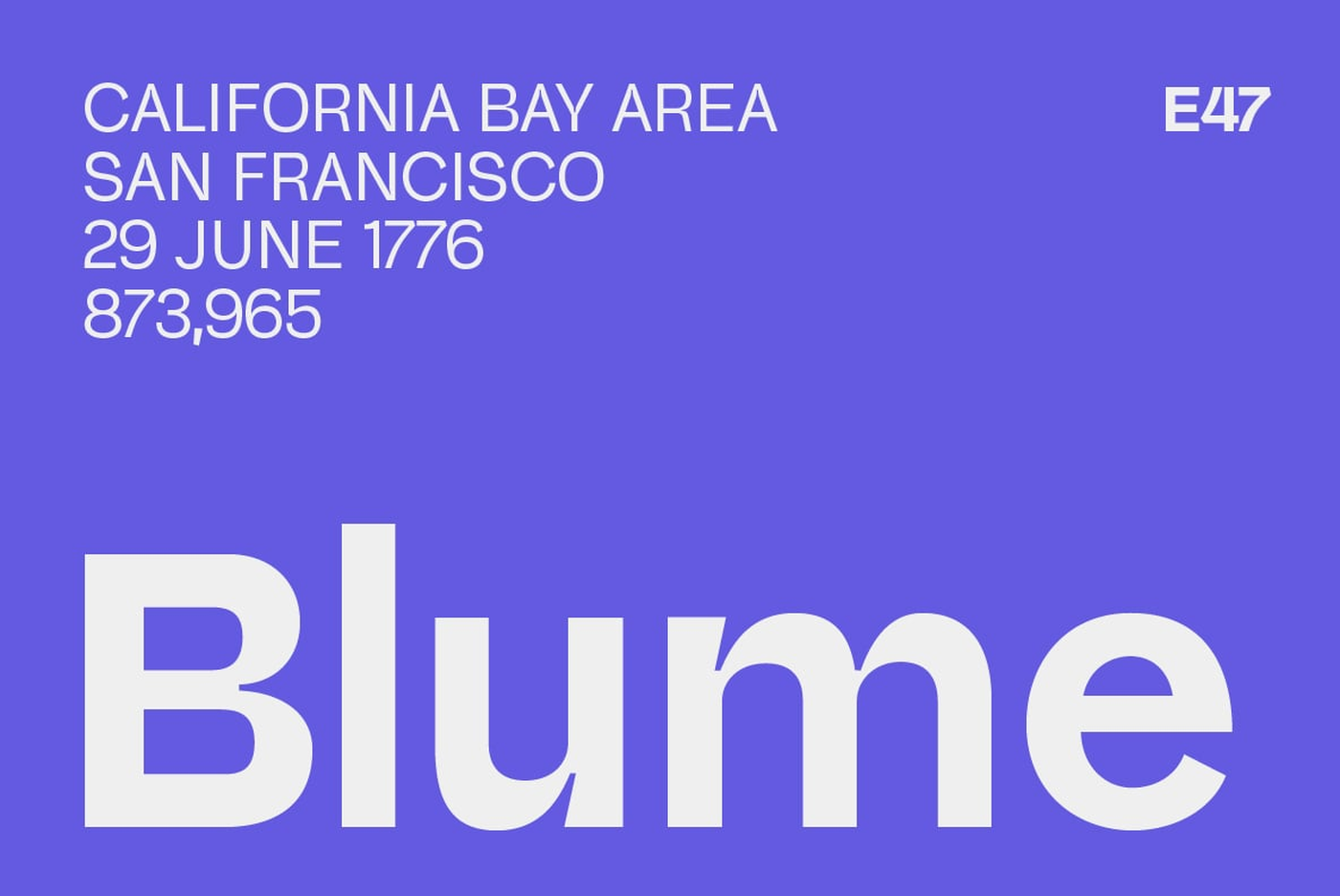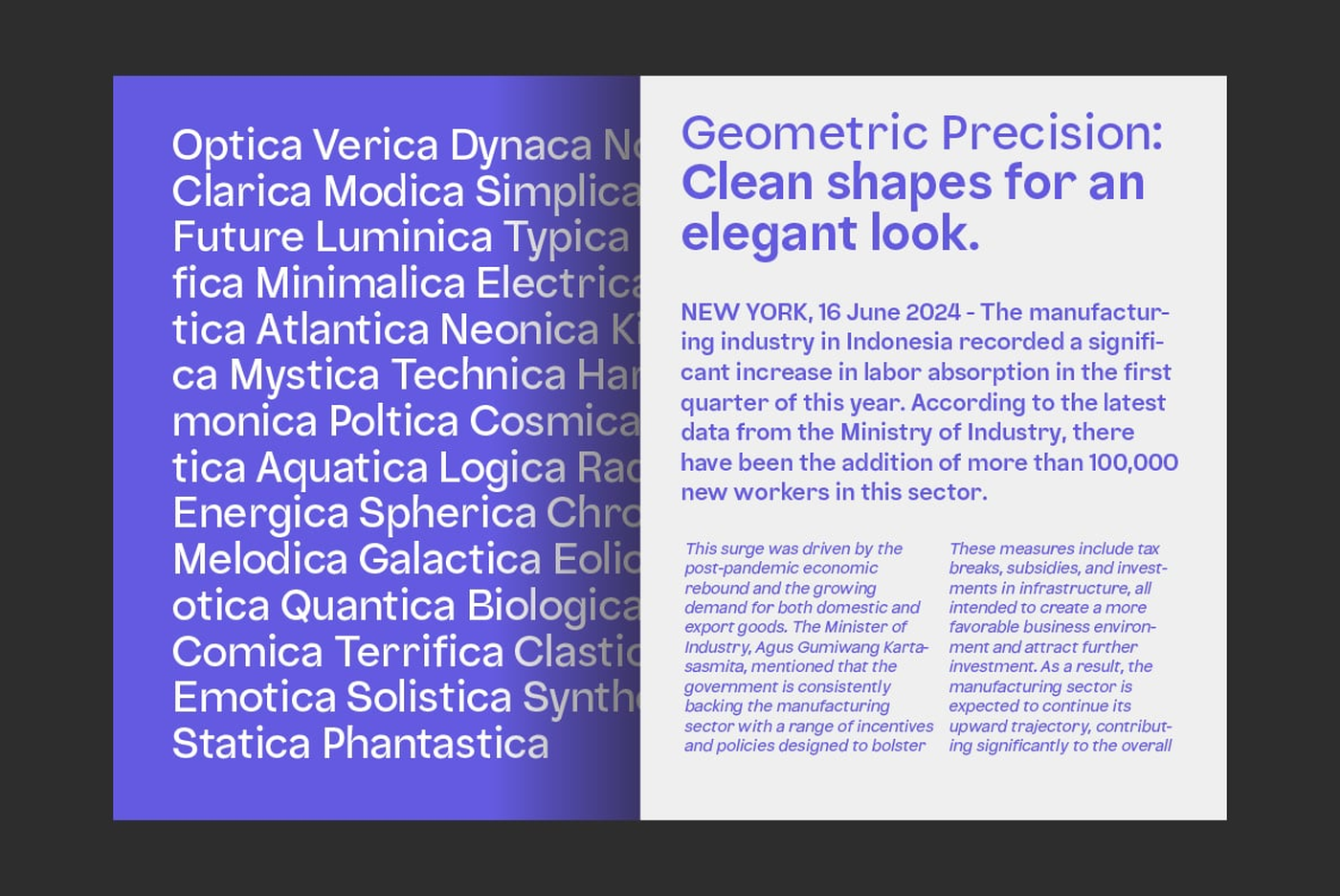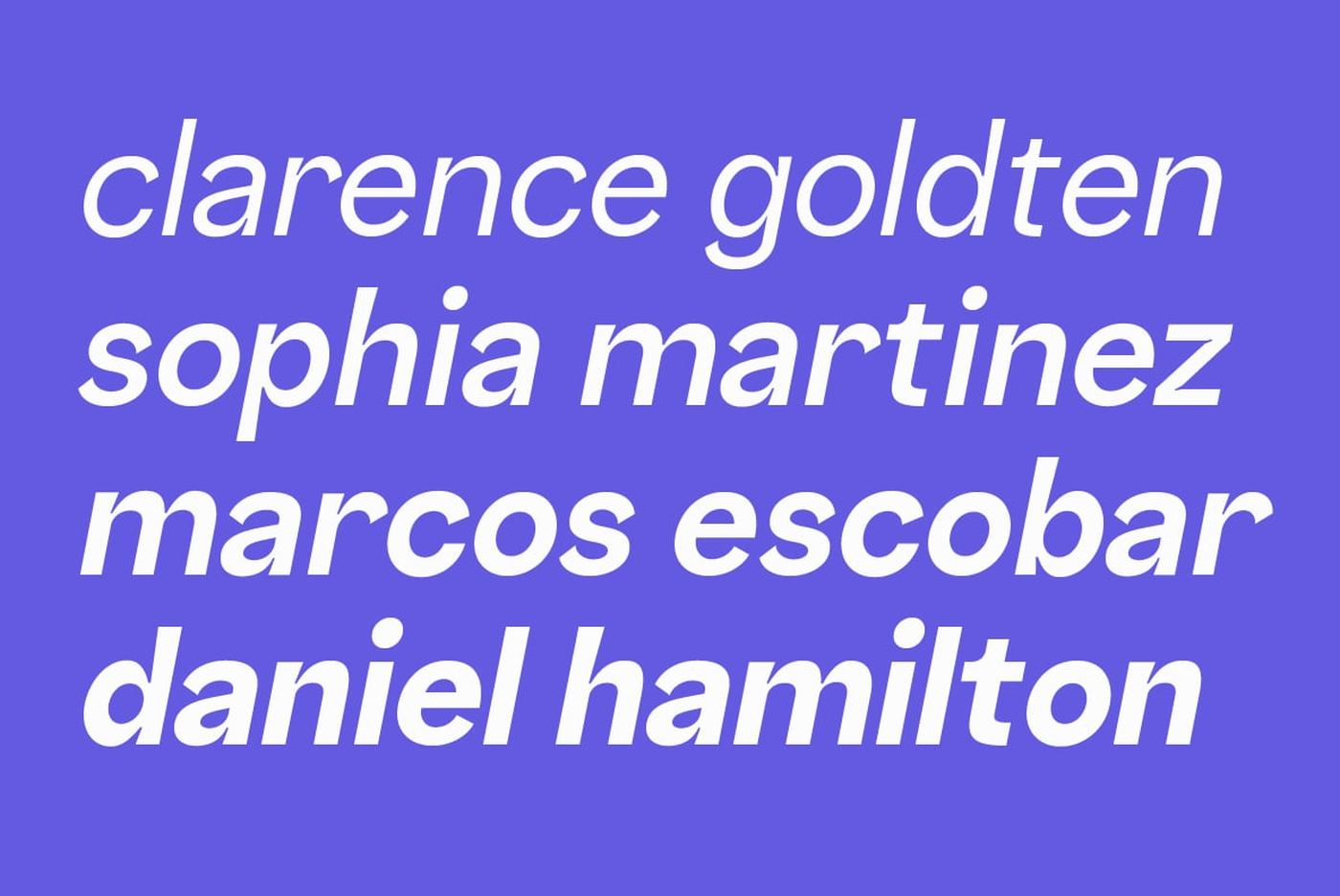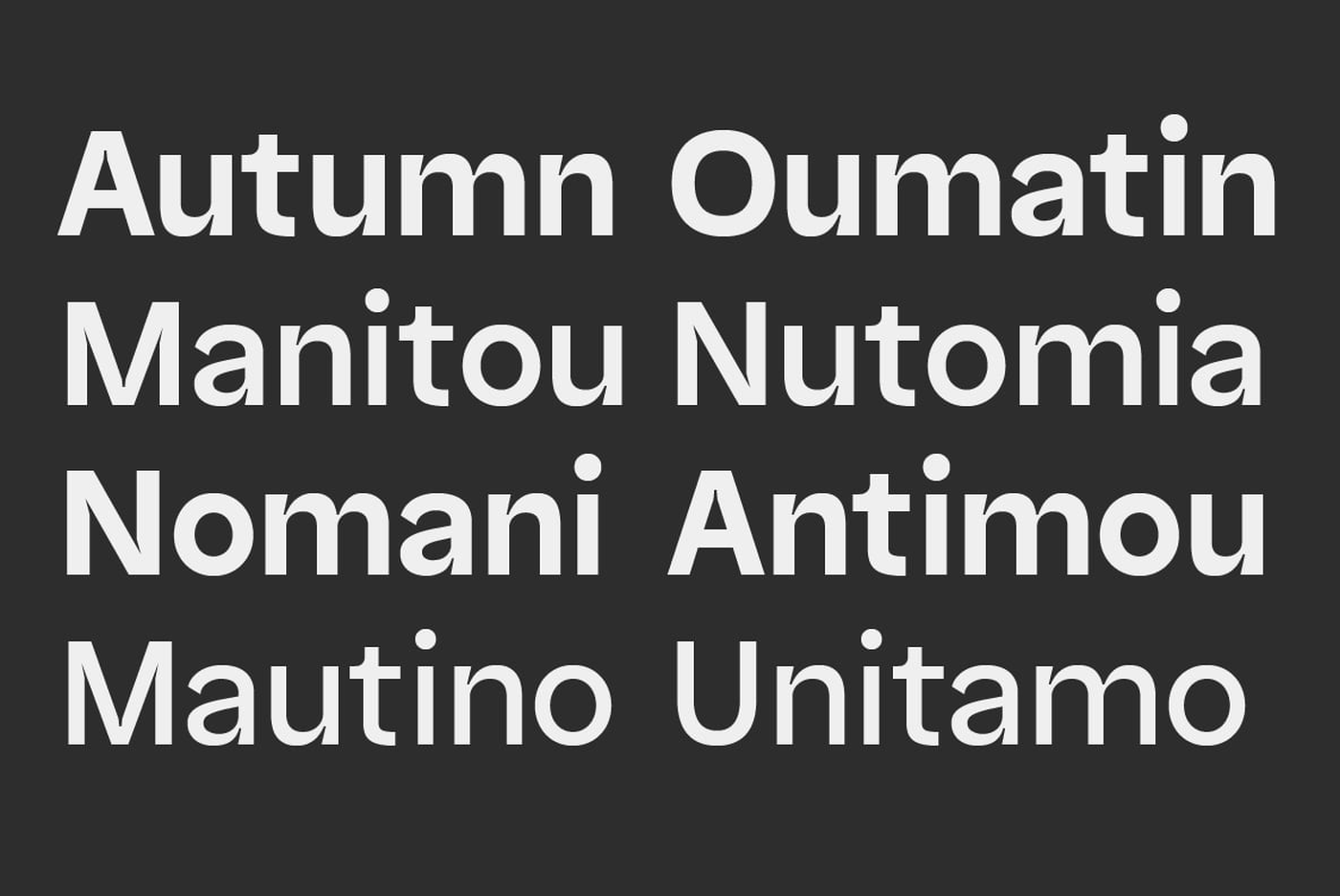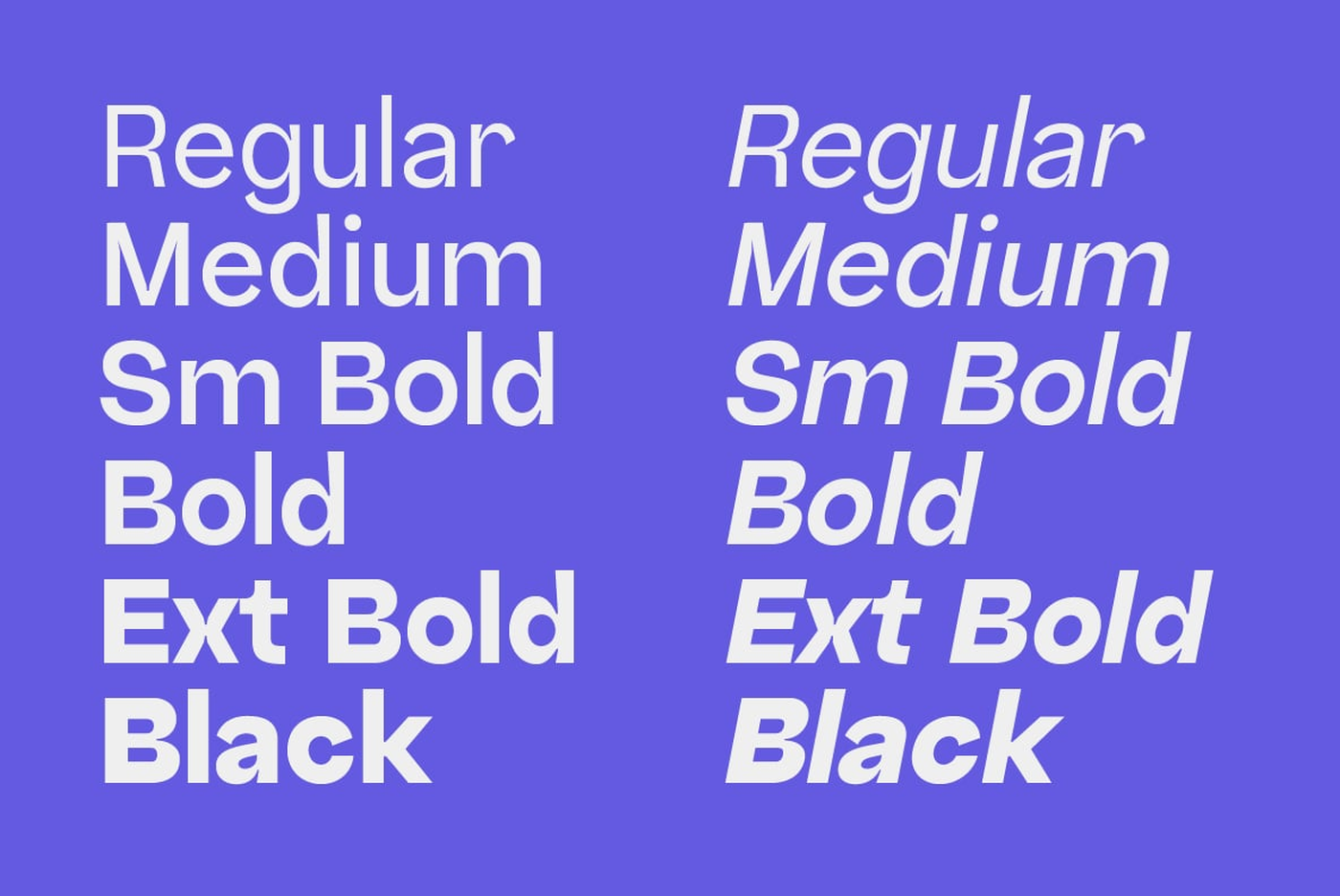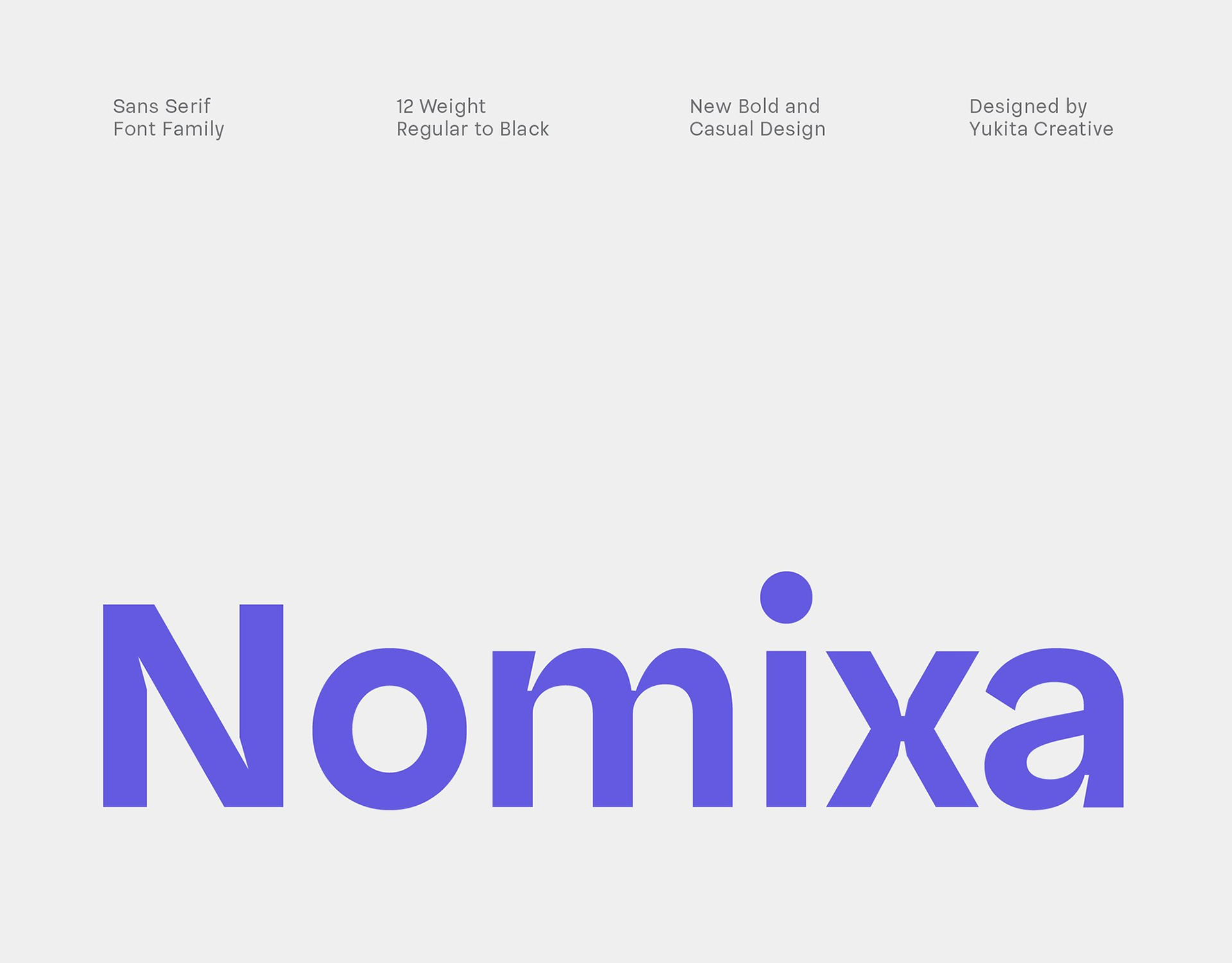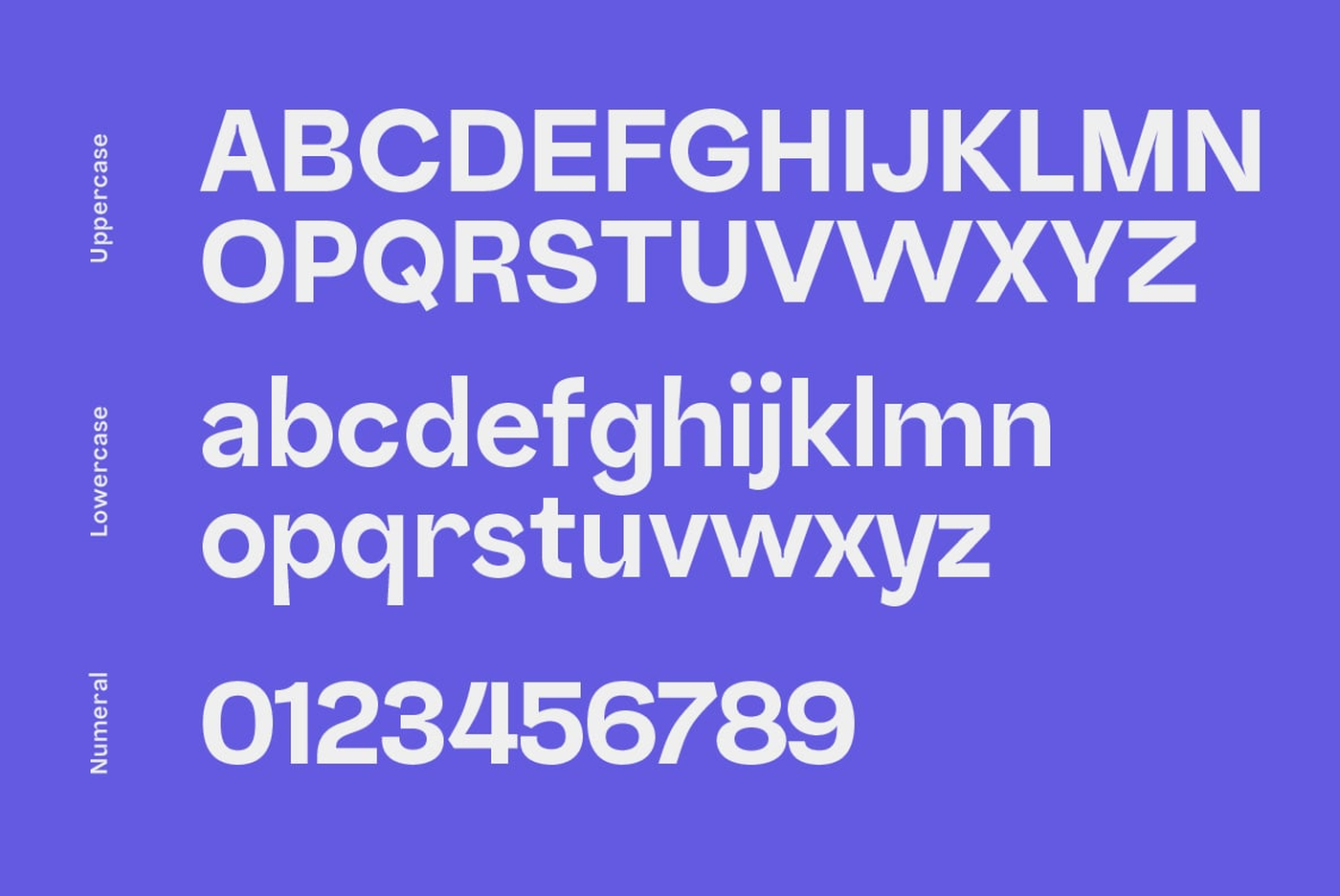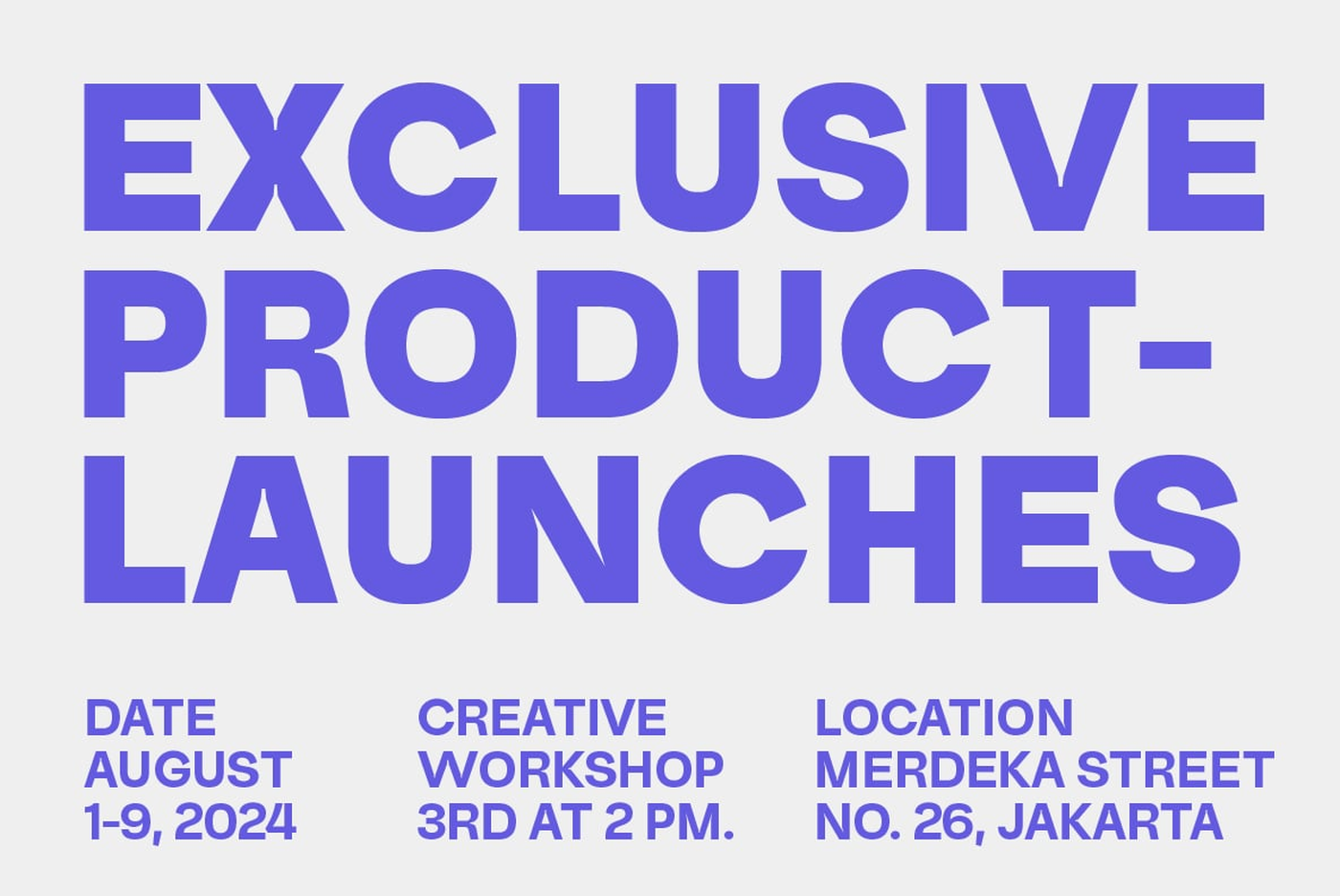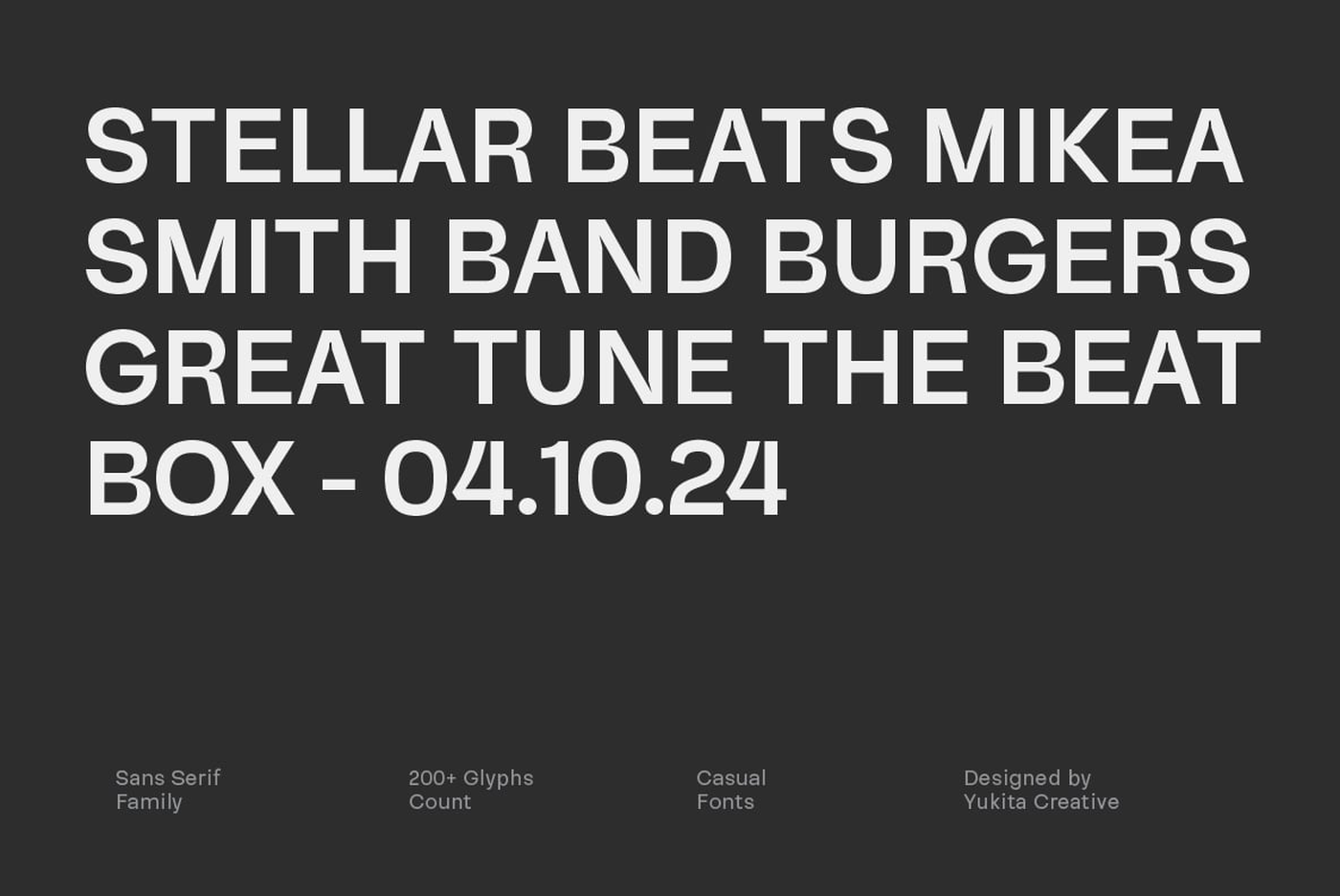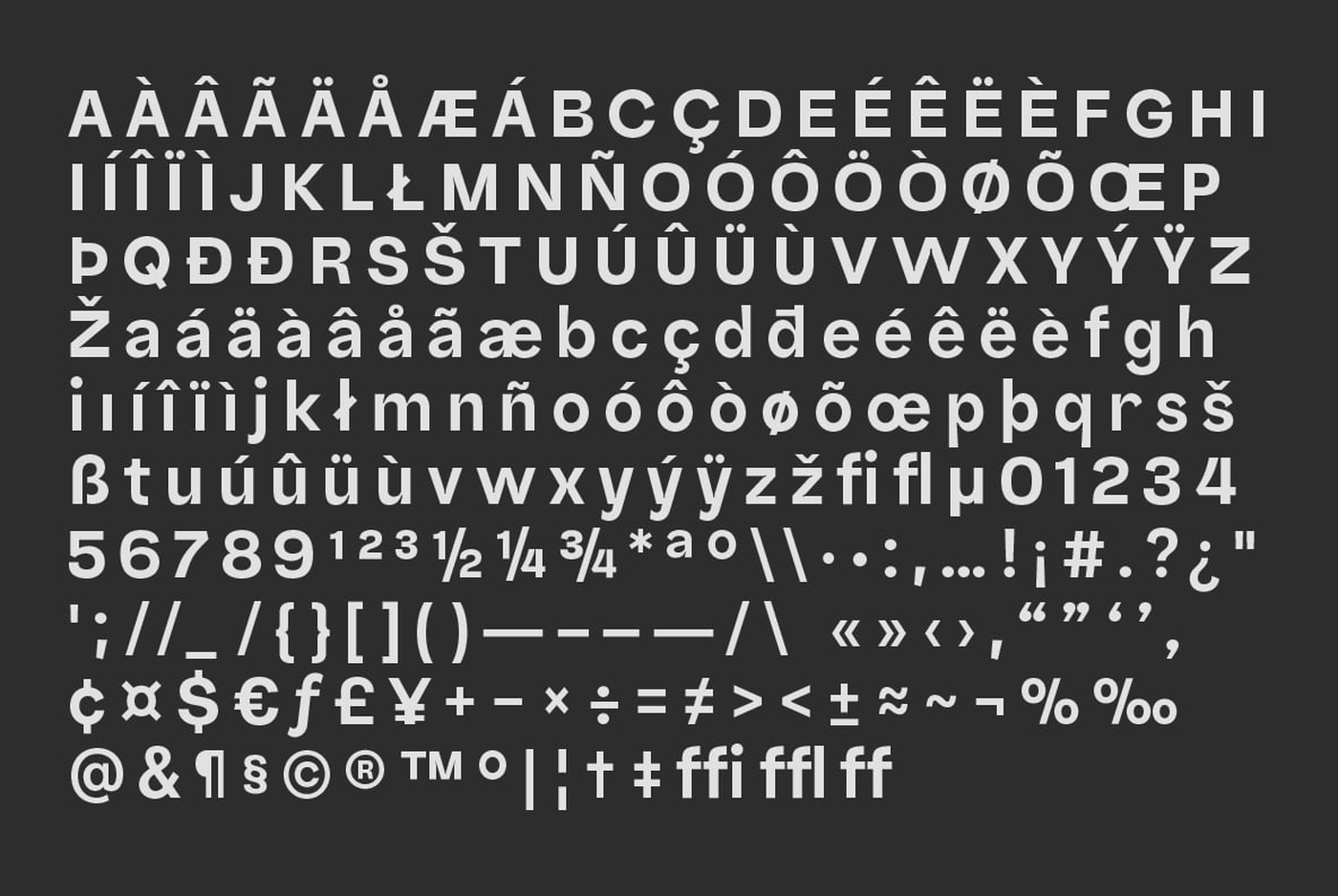
Nomixa - Sans Serif Font Family
Nomixa a sans-serif font family designed to make your designs stand out. With 12 different weights, including italics, Nomixa offers endless possibilities for creating bold, eye-catching, and modern designs. This font is perfect for projects that require a strong yet casual aesthetic, making it a must-have for any designer.